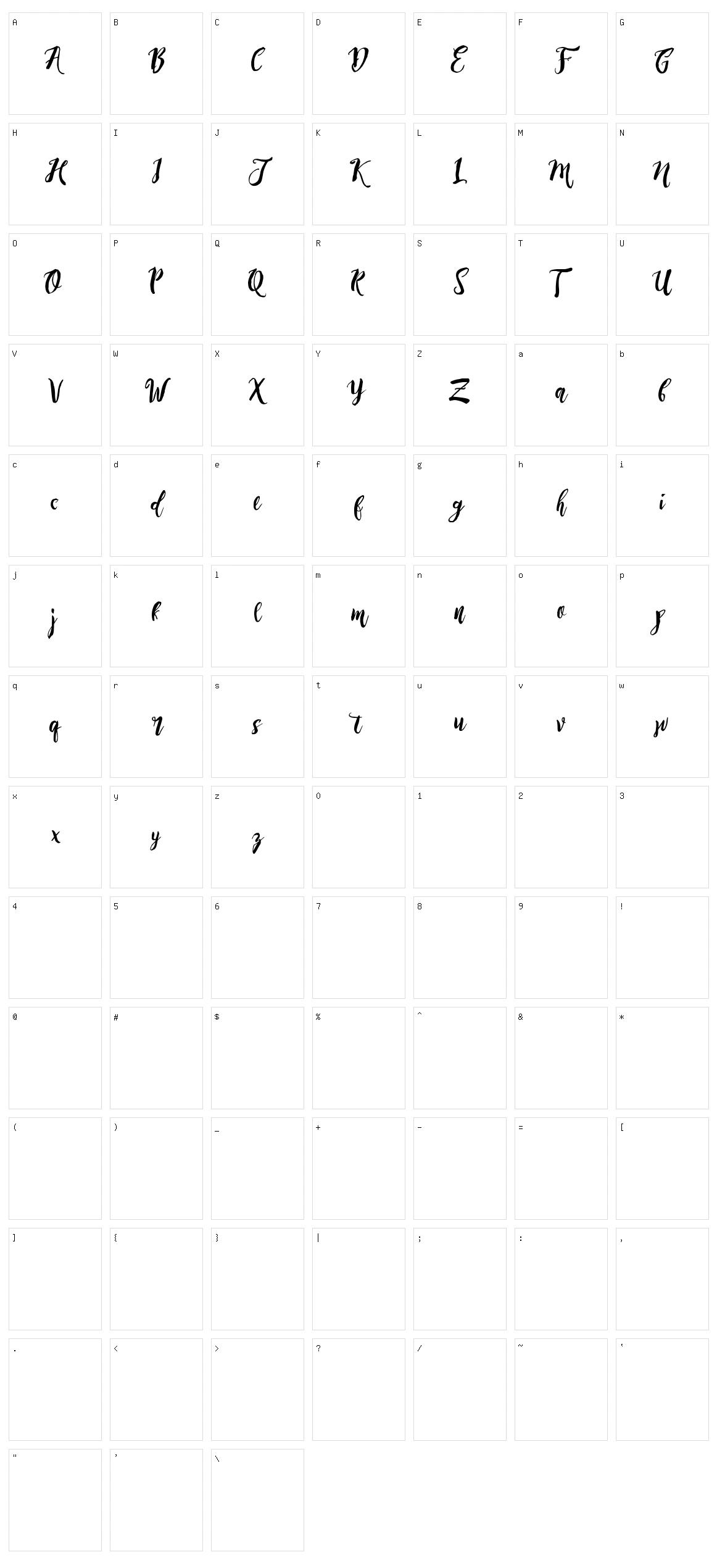
Rising Brush Script is a chaotic beautiful script.Imperfect flow and grunge style combined with script create awesome elegant and grunge feel at the same time. Awesome for designing book covers, film covers, apparel, cards, logos, posters, etc. Opentype features gives you more alternatives in designing.